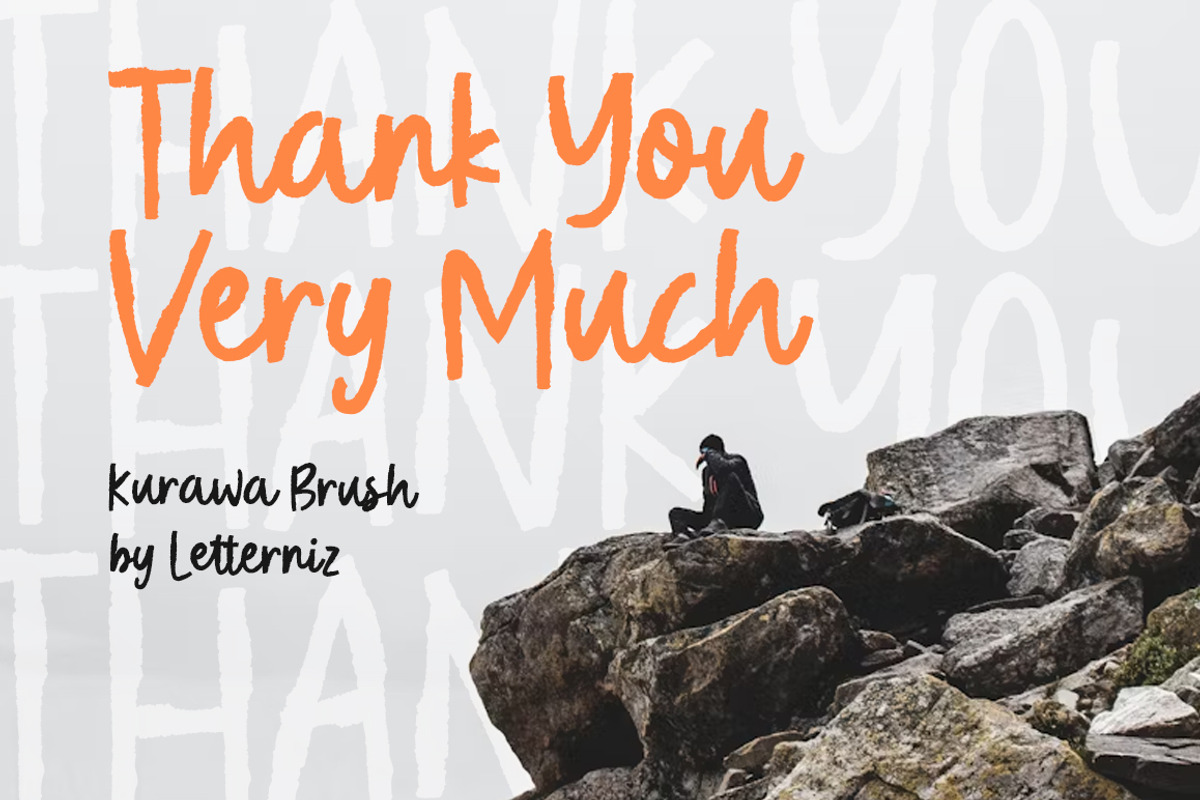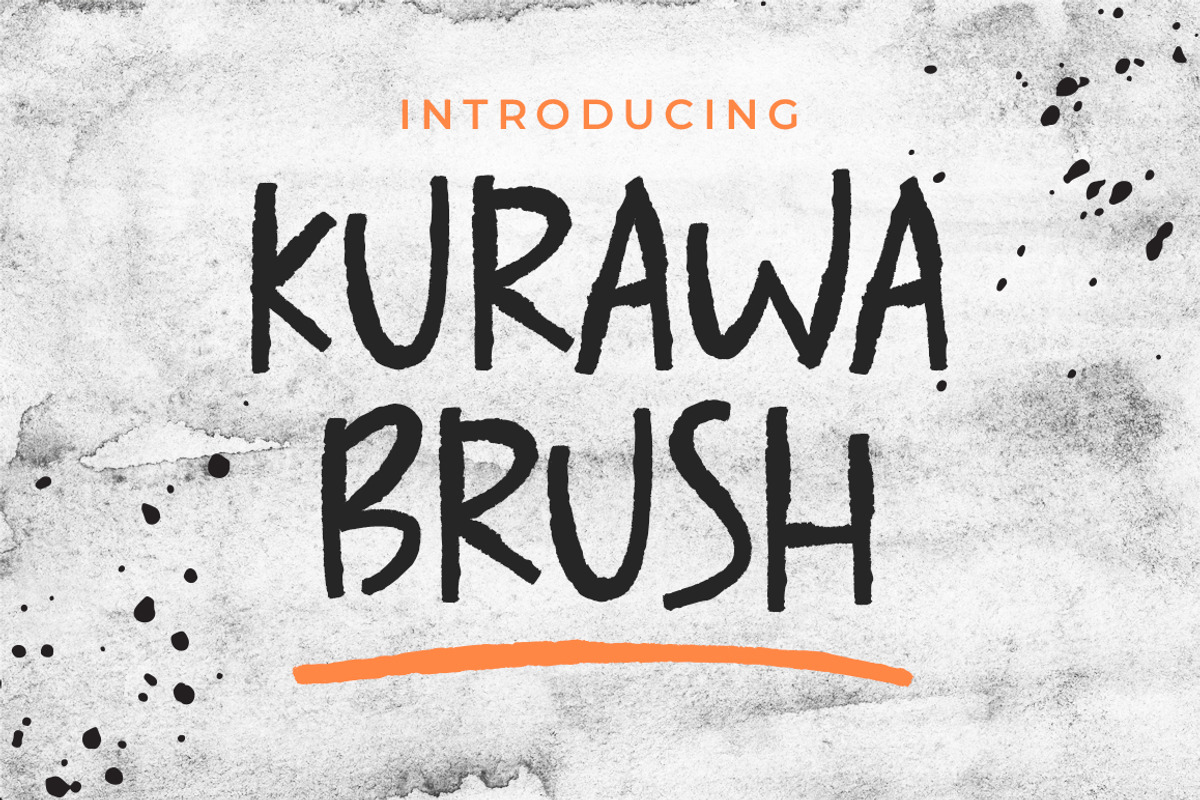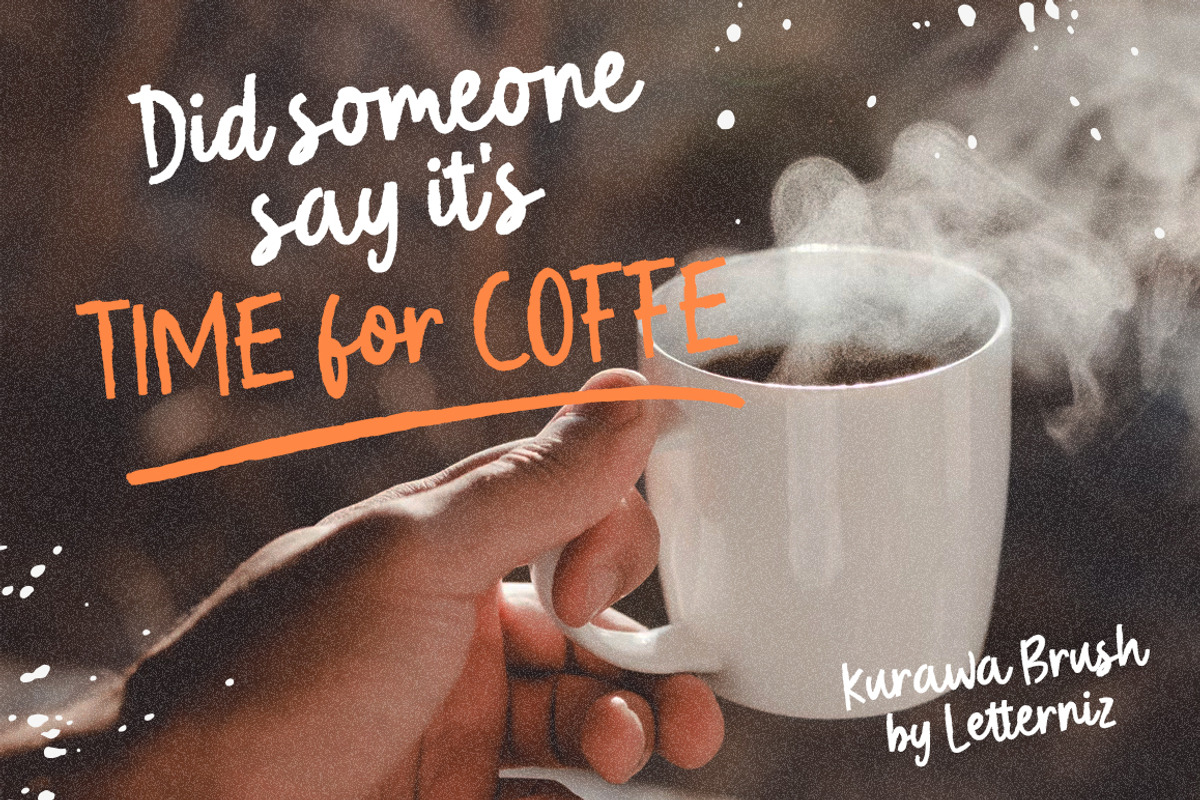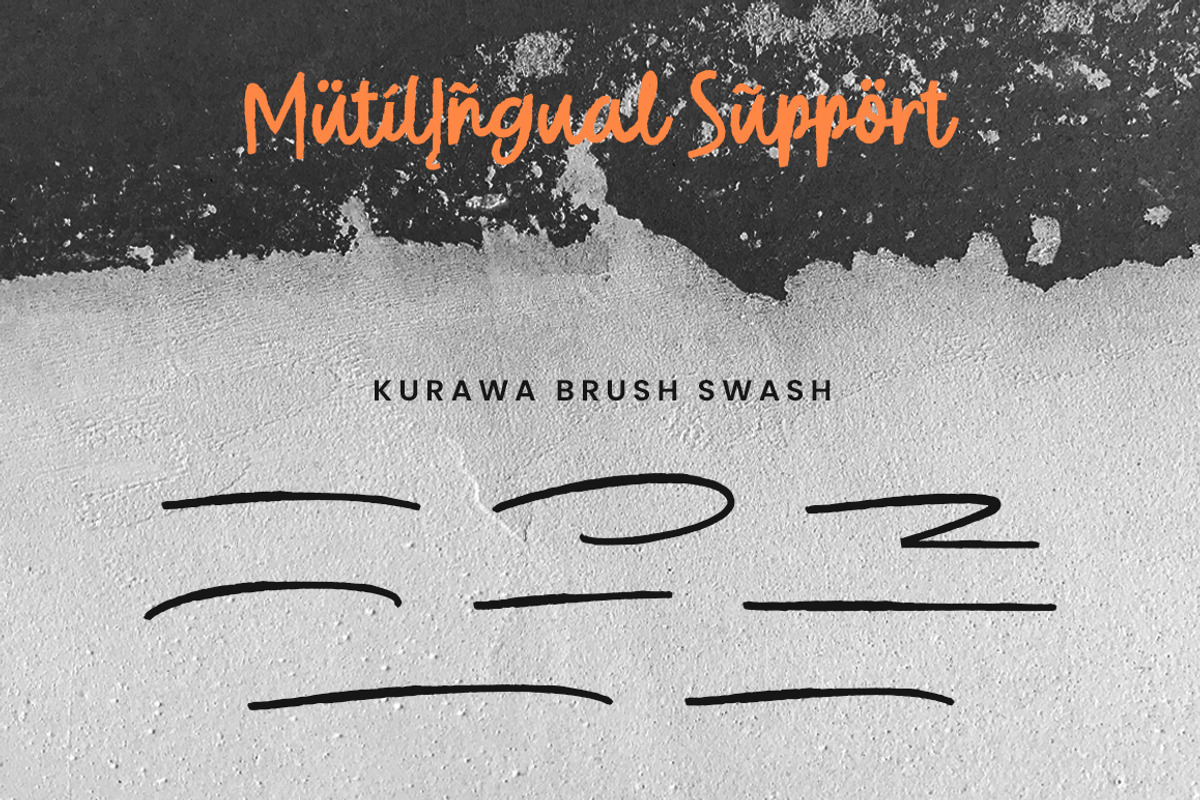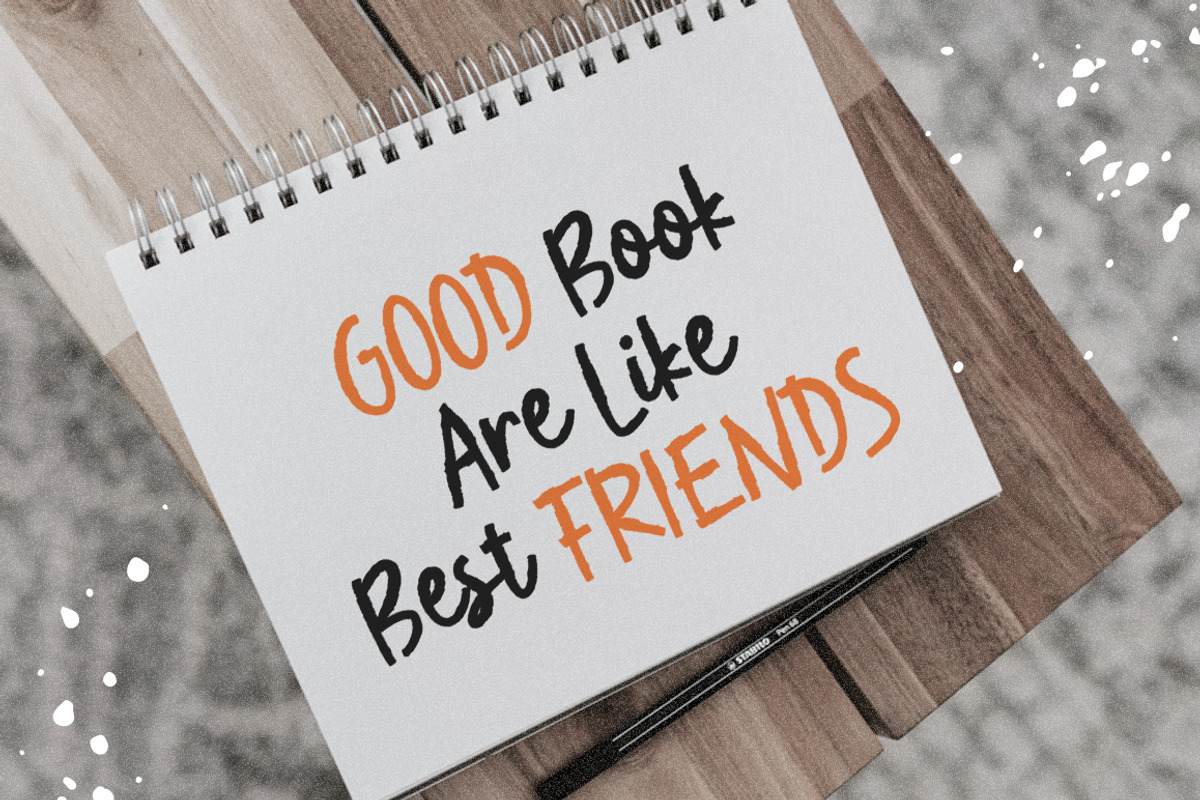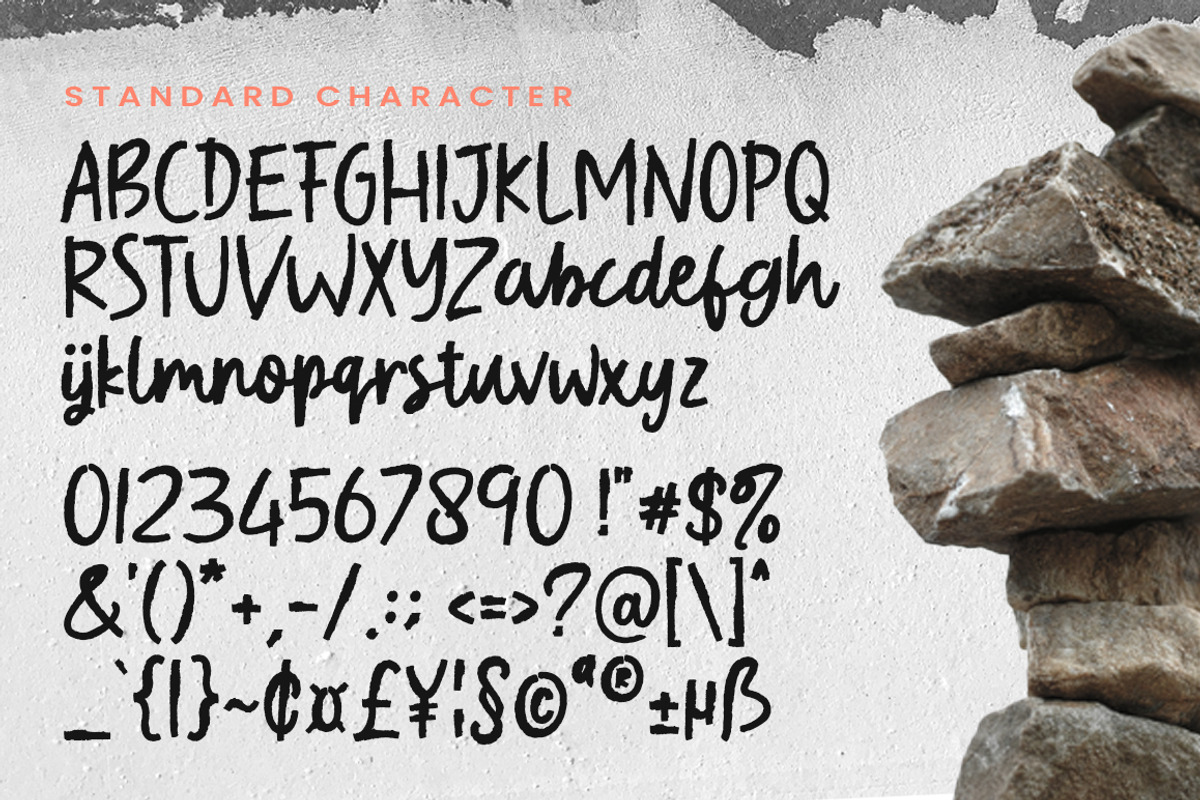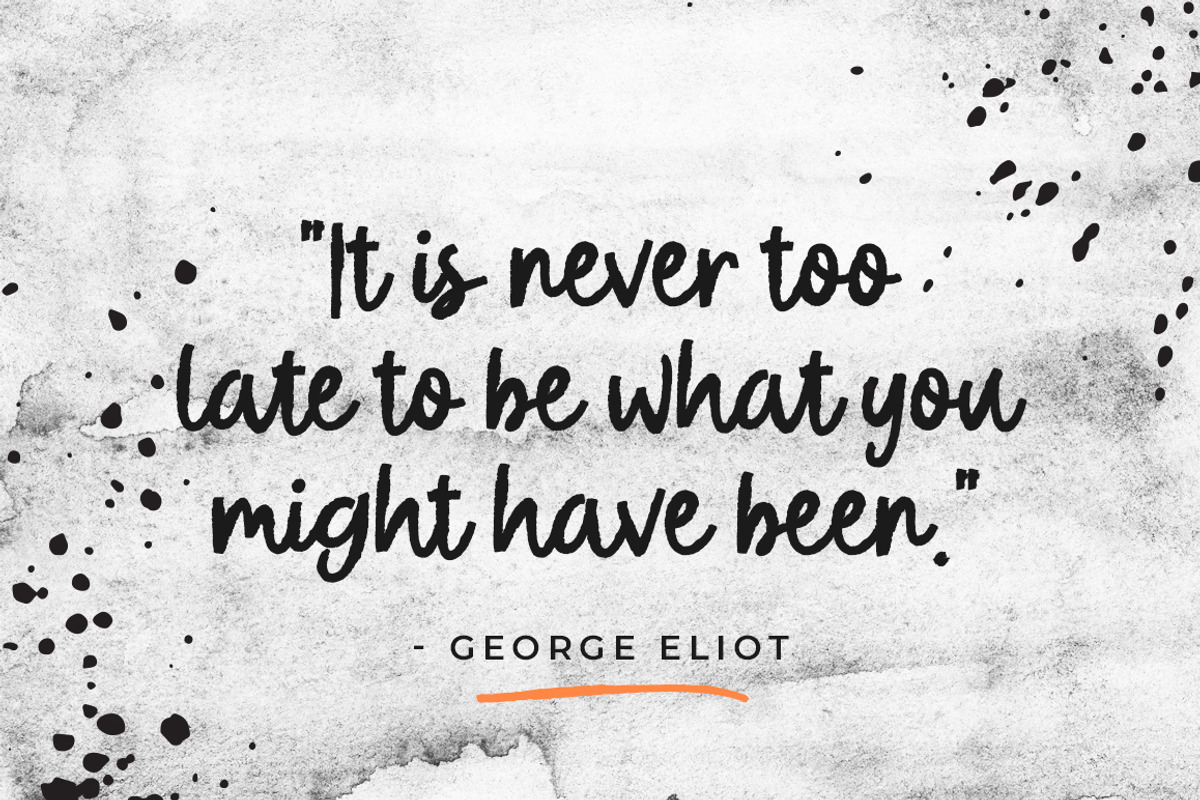
Kurawa Brush Handwritten Font
Kurawa Brush it looks natural like a handmade which has a fast dry brush style, delivering a stylish script which is guaranteed to add an eye-catching appeal to your logo designs, brand imagery, handwritten quotes, product packaging, merchandise & social media posts. Kurawa Brush typeface is designed to make your next great project look more natural and stand out.